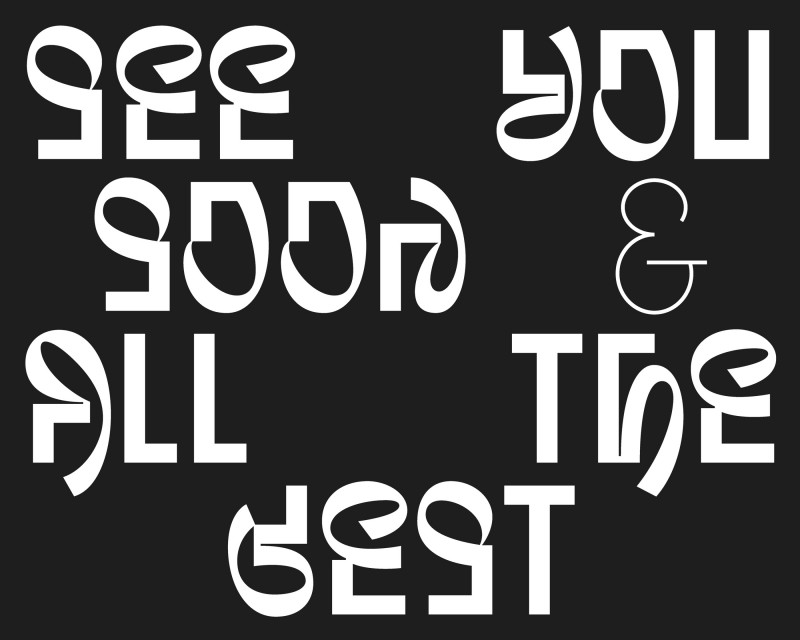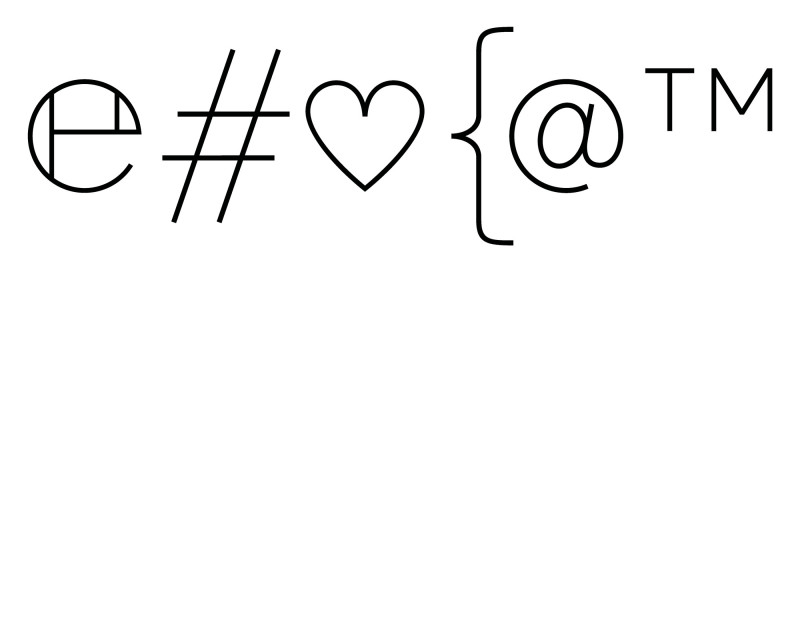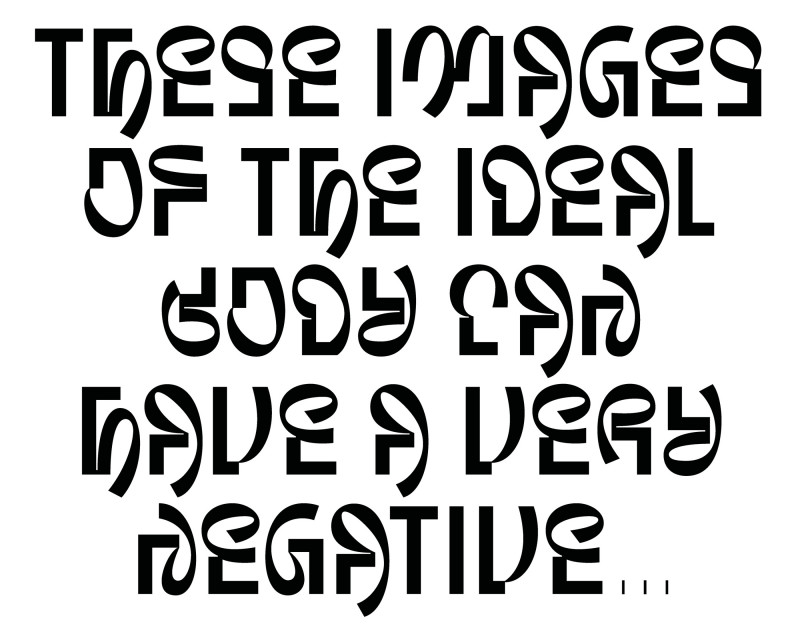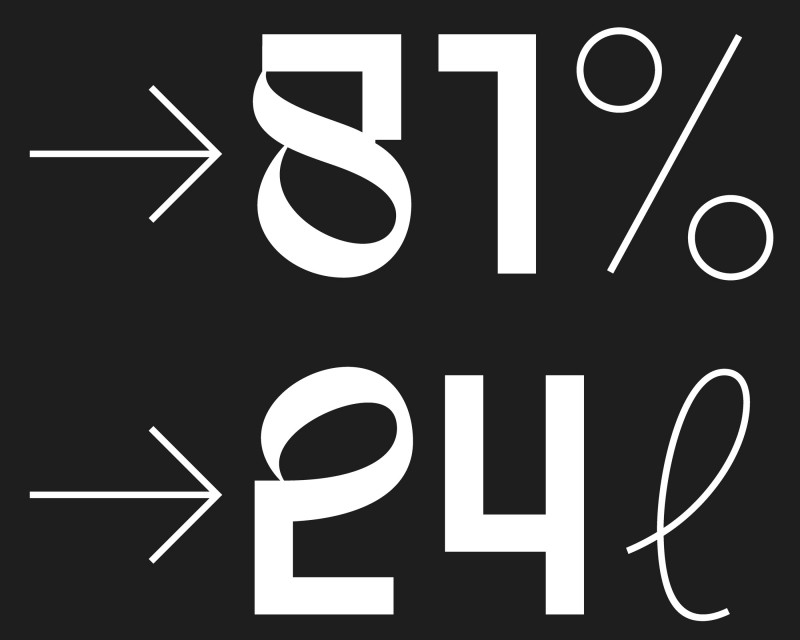
Langulaire is a display typeface designed by Loris Pernoux.
Langulaire is a display typeface that has been design with contrasty curves mixed with at least one ninety degree angle for each character. It finds its aspiration somewhere in-between the images at the basis of hieroglyphs, graffiti and calligraphy. Its evocative design creates letterforms that need to be deciphered, that are deceptively suggestive of a new language and challenges the reader to a more pictorial mode of expression.
Loris Pernoux
Fractions
Superscript Numbers/Letters
Subscript Numbers